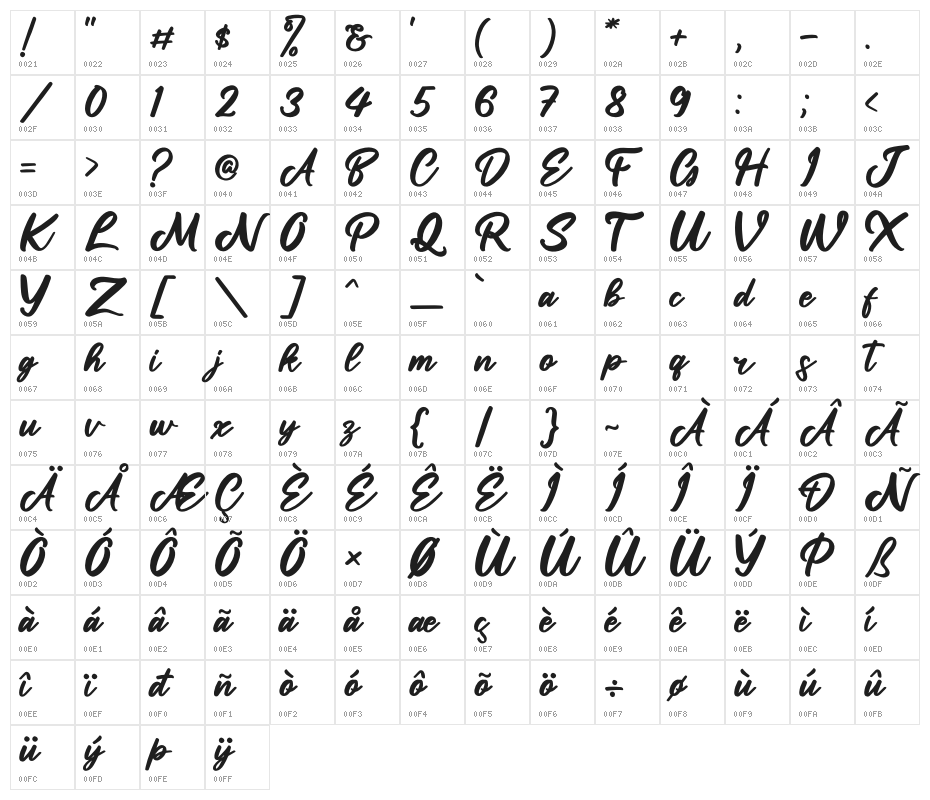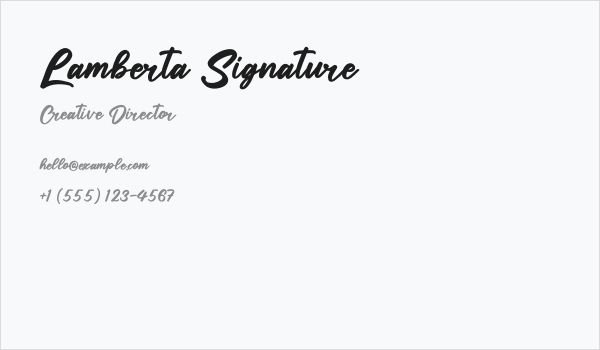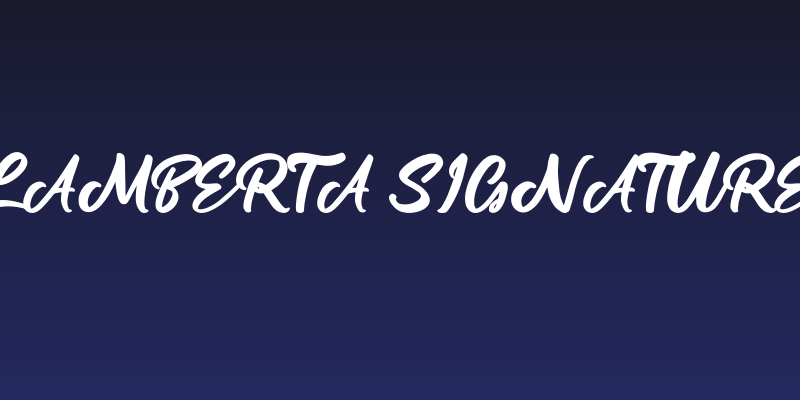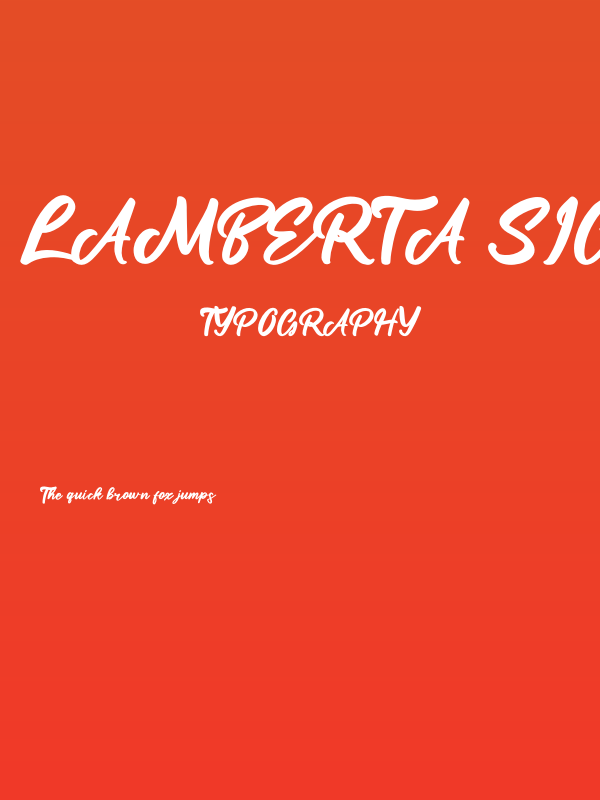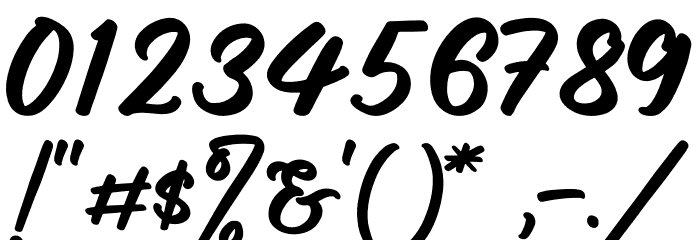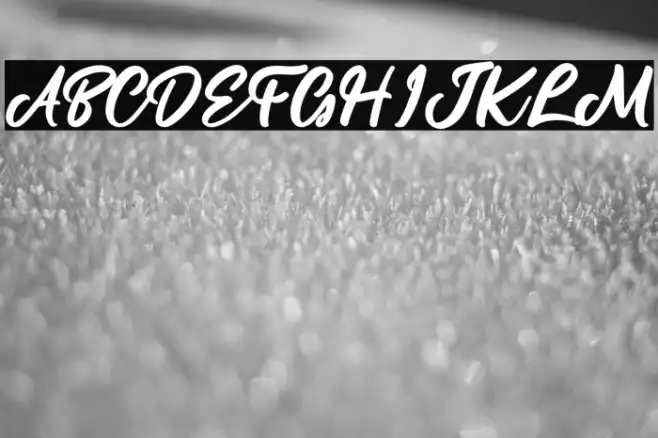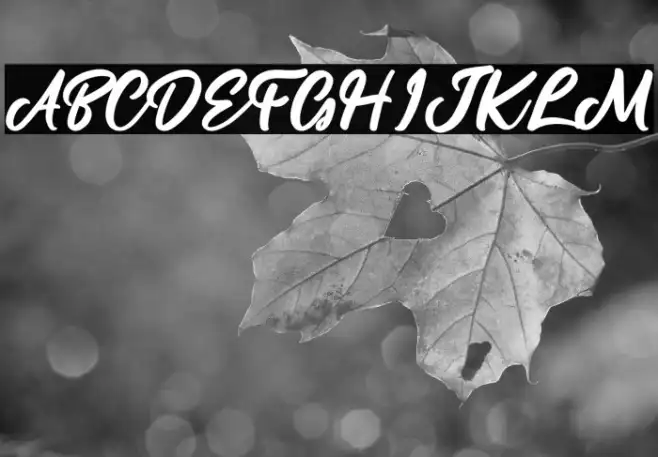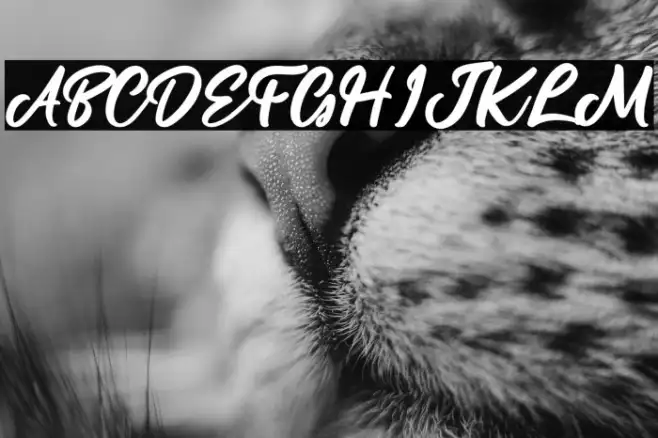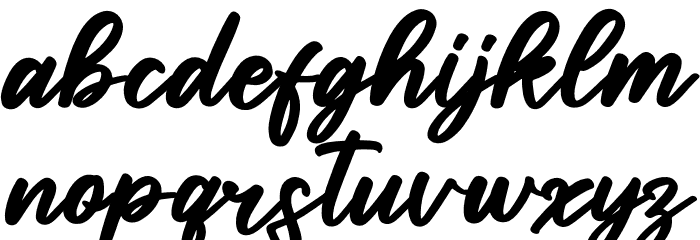
Lamberta Signature Font
Lamberta Signature Description
This font exudes a sophisticated and elegant style, characterized by its fluid, cursive script that mimics the natural flow of handwriting. The letters are interconnected, creating a seamless and continuous look that is both graceful and dynamic. The strokes are bold and confident, with a consistent thickness that adds to the font's readability and impact. The uppercase letters stand tall with a slight slant, while the lowercase letters maintain a smooth and rounded appearance. This font is perfect for adding a personal touch to any project, evoking a sense of warmth and authenticity.
| Use Case | Logos, Invitations, Personal branding |
| Proposed Projects | Ideal for wedding invitations, personal branding, logos, and elegant packaging designs. |